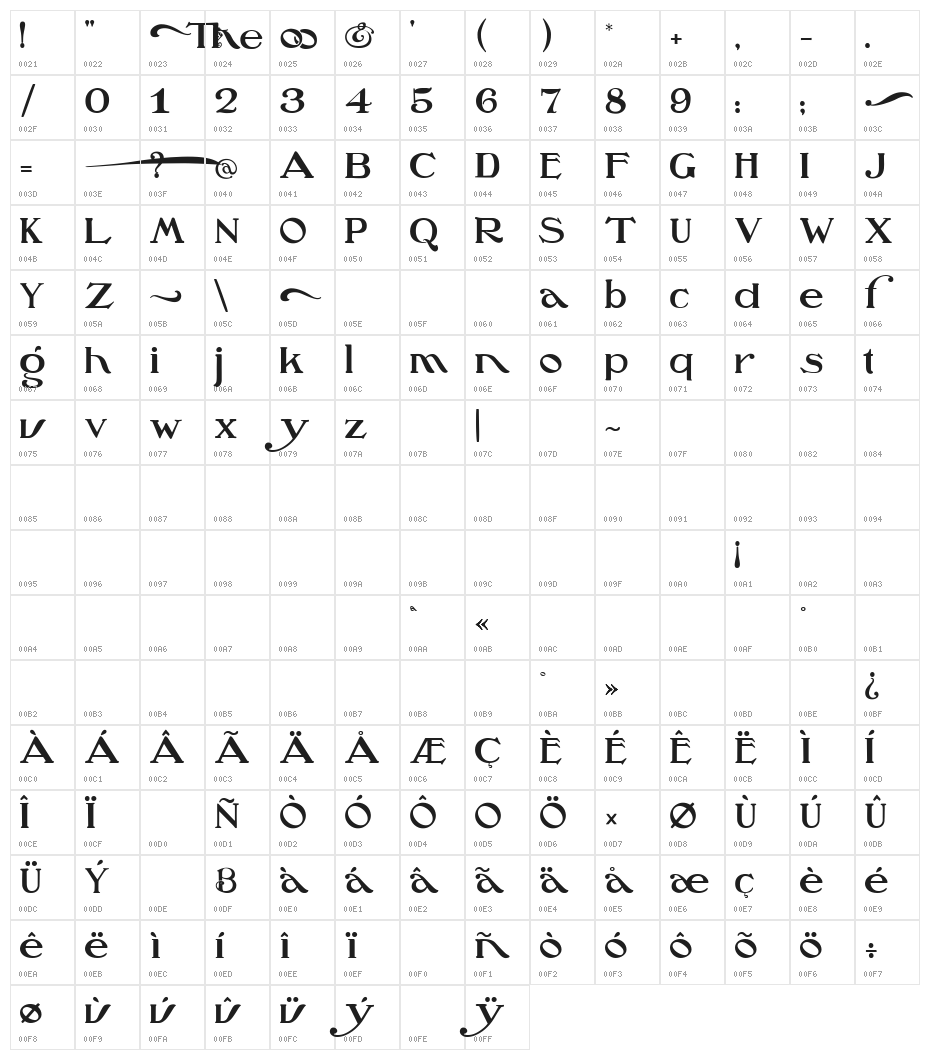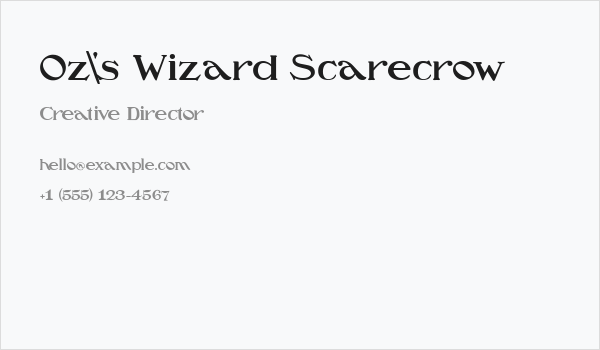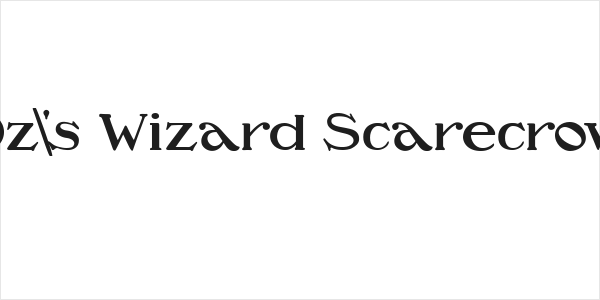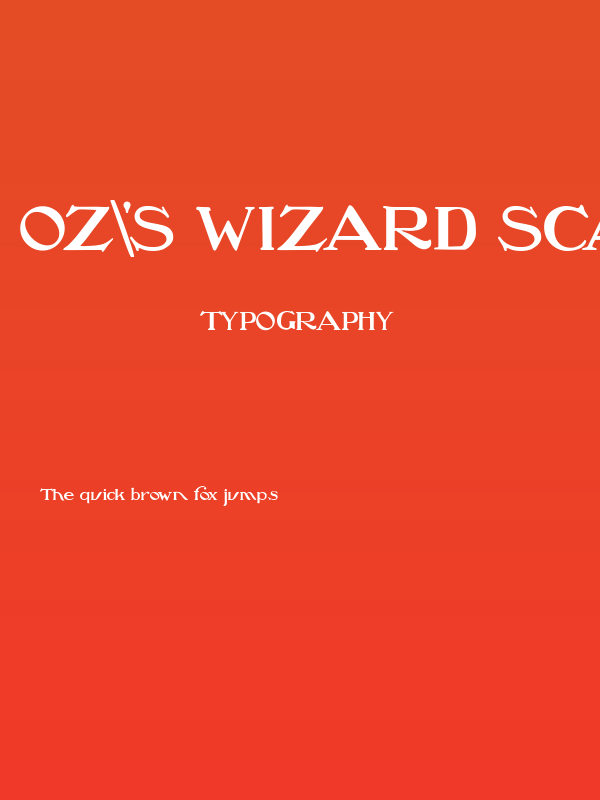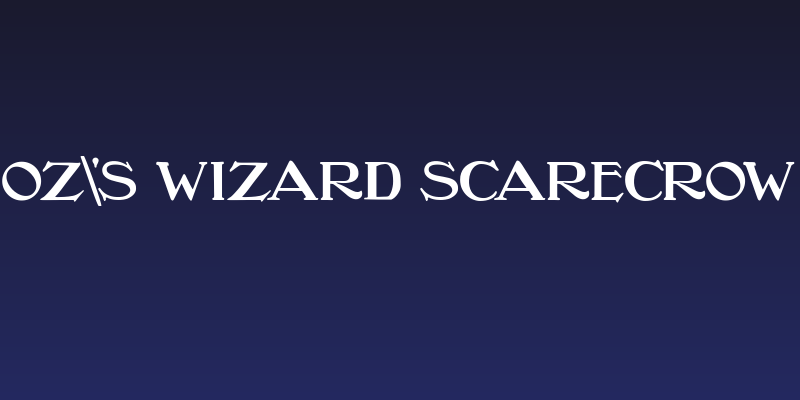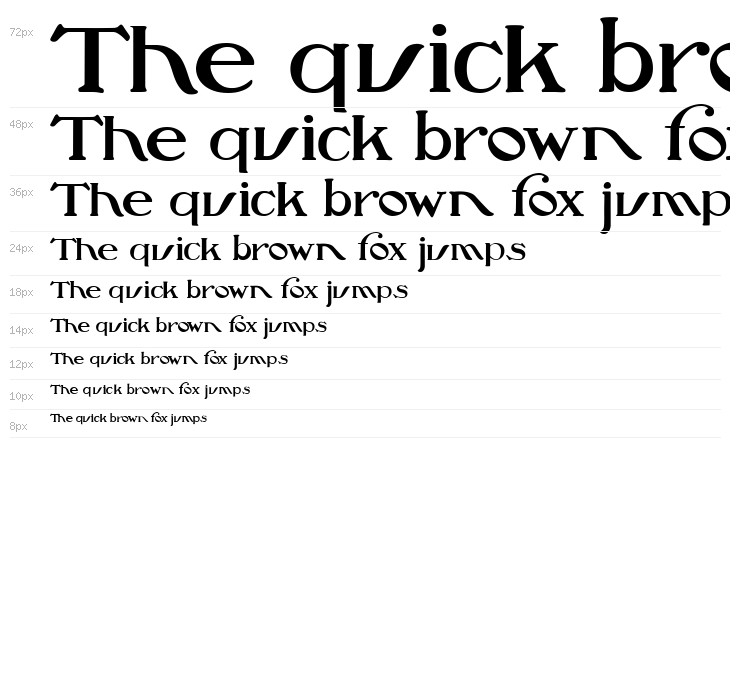
Oz's Wizard Scarecrow Font
Oz's Wizard Scarecrow Description
This font features a whimsical and playful design, characterized by its unique and decorative elements. The uppercase letters exhibit a blend of sharp angles and smooth curves, creating a dynamic and engaging appearance. The lowercase letters maintain a consistent style, with some characters featuring distinctive flourishes that add to the font's charm. The numerals are bold and slightly rounded, ensuring readability while maintaining the overall aesthetic. Special characters are creatively designed, incorporating intricate details that enhance the font's decorative nature. This font's unique style makes it suitable for projects that require a touch of fantasy and creativity.
Proposed ProjectsIdeal for fantasy-themed designs, children's book covers, creative posters, and branding for whimsical products.